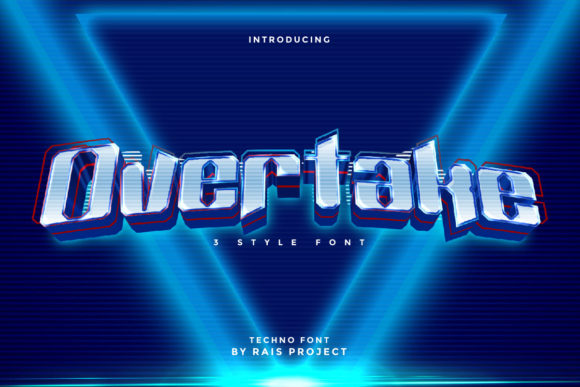
Behold Overtake Font, the ultimate typography masterpiece, meticulously crafted to unleash the adrenaline of velocity and motion into your creative endeavors. As a techno display font, Overtake Font transcends the ordinary, captivating your audience with its exclusive letter style that exudes dynamism and energy.
Unleash the power of Overtake Font and propel your designs to new heights of visual impact. Whether you're crafting heart-pounding movie titles, adrenaline-fueled game interfaces, or captivating magazine layouts, Overtake Font is your ultimate weapon. Its versatility extends to music posters that reverberate with rhythm, video projects that ooze kinetic energy, and sports branding that ignites the competitive spirit.
With Overtake Font, you hold the key to unlocking a world of boundless creativity. Its unique letterforms, reminiscent of sleek race cars and pulsating beats, will transform your designs into sensory experiences that leave your audience breathless.
Step into the fast lane of visual storytelling with Overtake Font. Let its bold strokes and sharp angles inject an exhilarating rush of energy into your logos, posters, and social media graphics. Feel the pulse of excitement as your designs break free from the ordinary and ignite a firestorm of engagement.
Overtake Font is more than just a font; it's an expression of your passion, a reflection of your relentless pursuit of excellence. Its dynamic spirit will elevate your projects, propelling them to the forefront of attention. Embrace the power of Overtake Font and witness the transformation of your creative vision into an awe-inspiring spectacle.